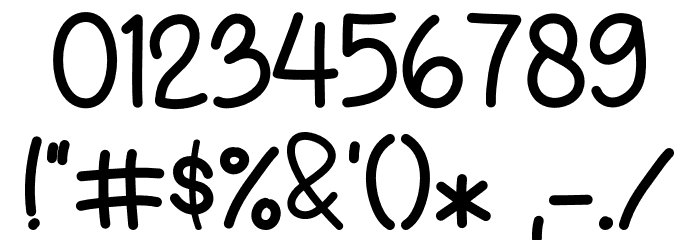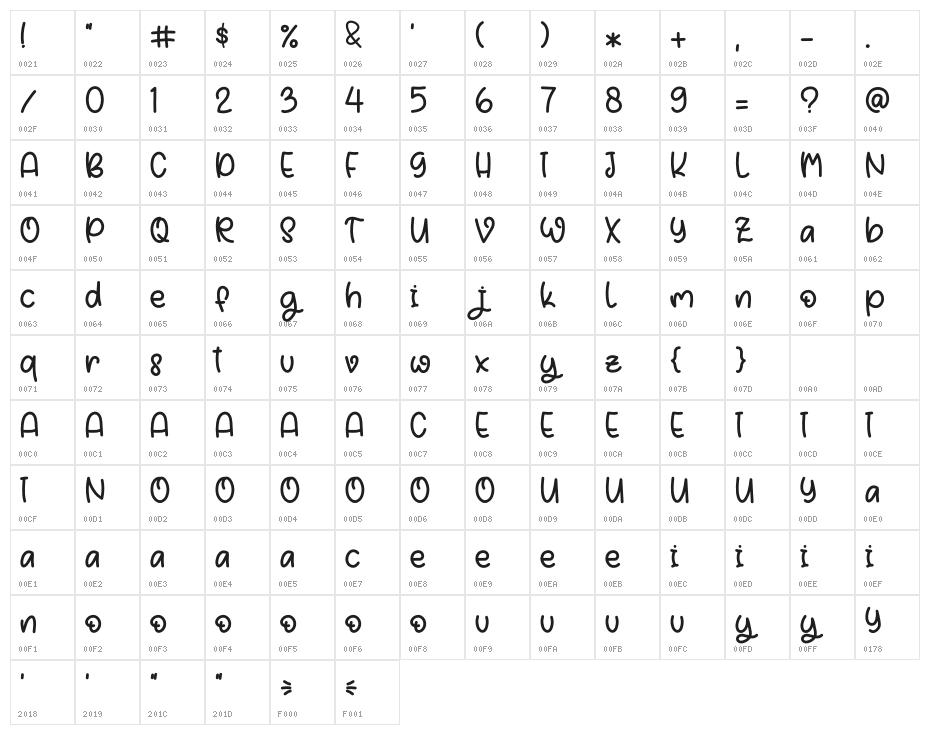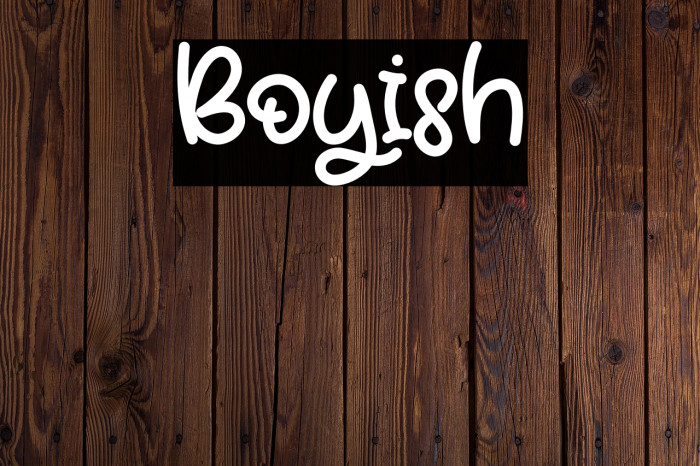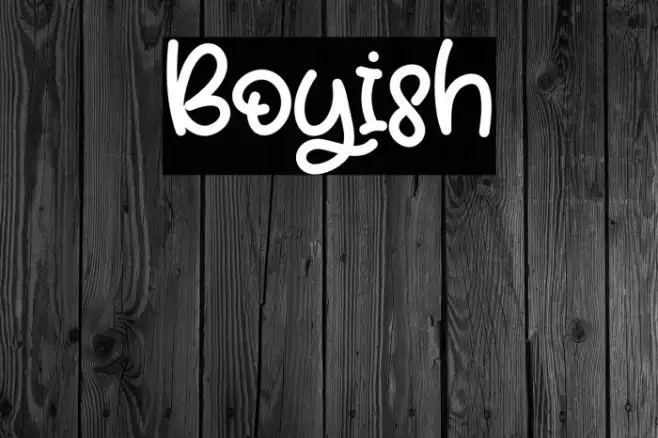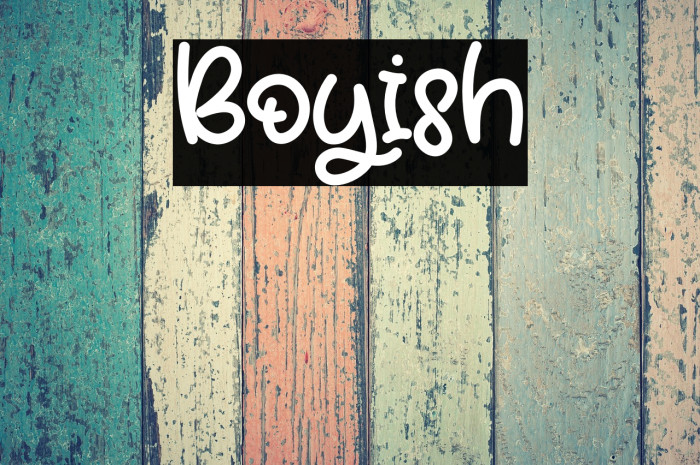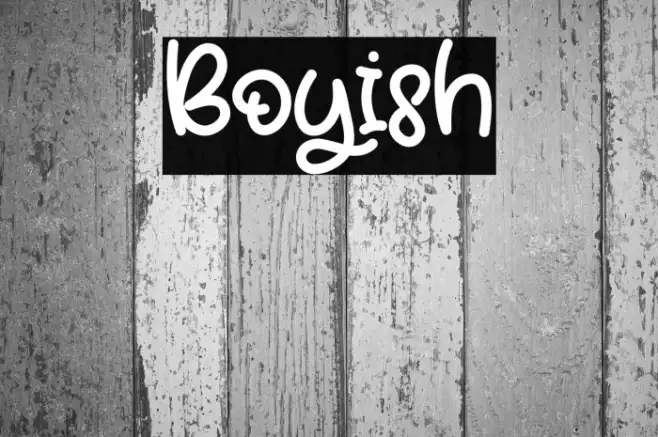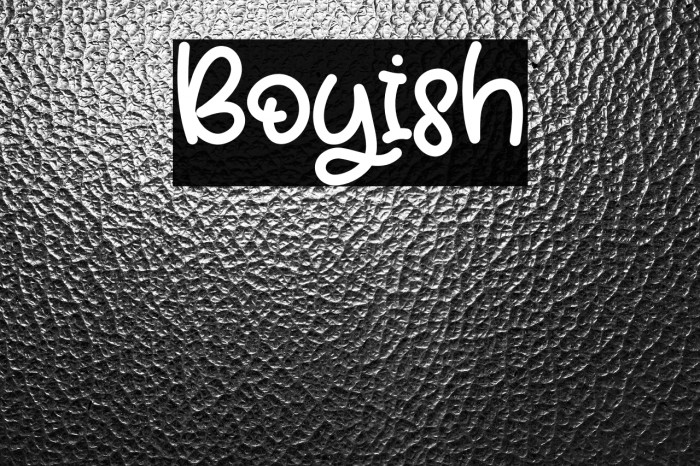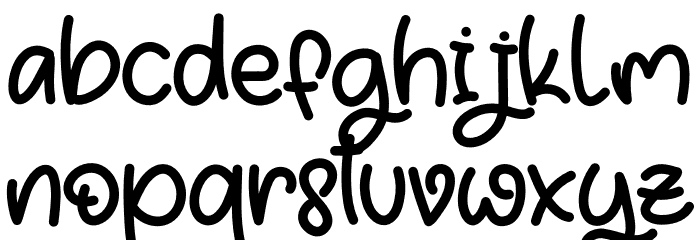
Boyish Font
Boyish Description
This playful and whimsical font features a handwritten style with rounded, bubbly characters. The uppercase and lowercase letters maintain a consistent flow, with slightly exaggerated curves and loops that give it a friendly and approachable feel. The numbers and special characters are designed to match the playful aesthetic, making them suitable for a variety of creative projects. The font's informal style is perfect for conveying a sense of fun and lightheartedness.
| Proposed Projects | Ideal for children's books, greeting cards, playful branding, and social media graphics. |